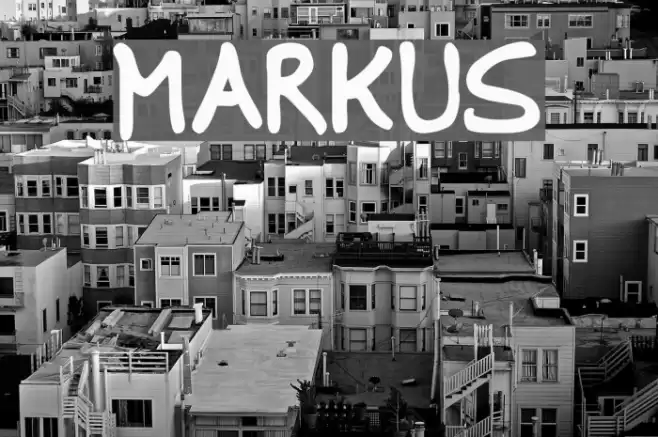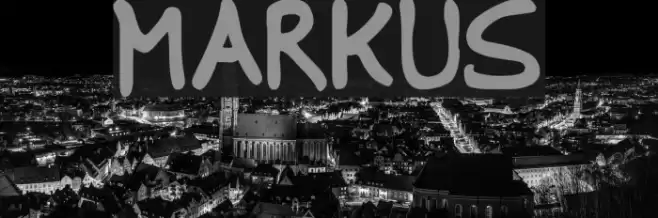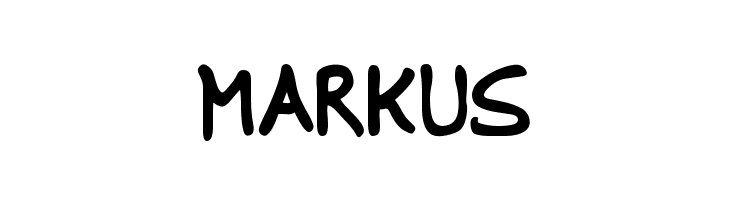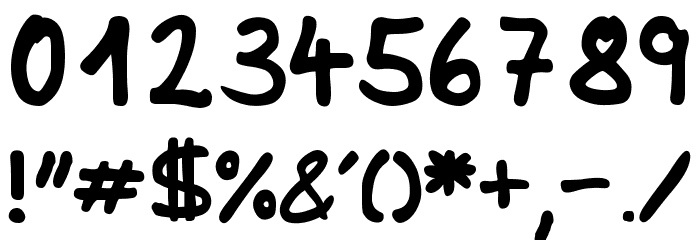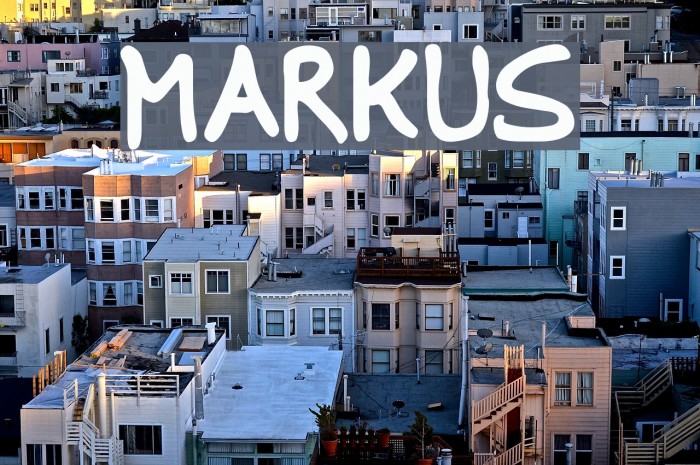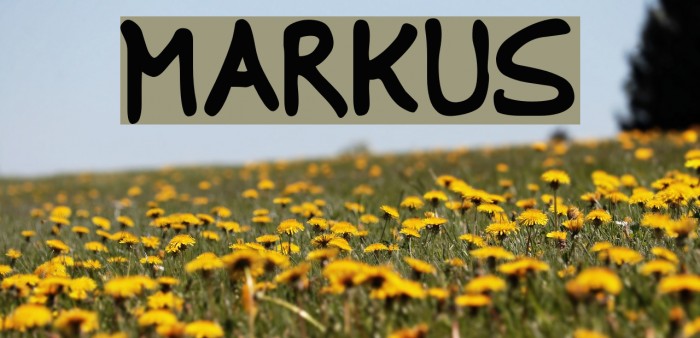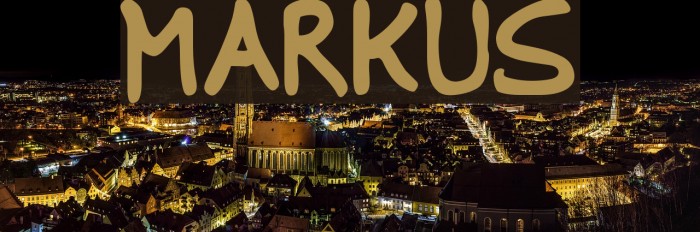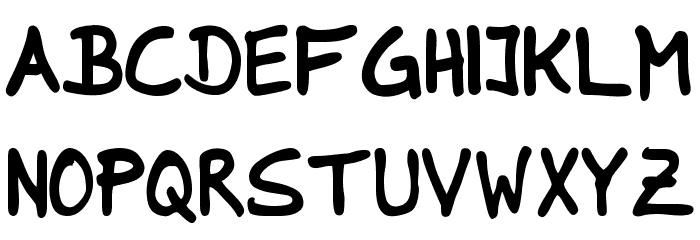
Markus Font
Markus Description
This font features a playful and bold handwritten style, characterized by its thick strokes and rounded edges. The letters are slightly irregular, giving it a casual and friendly appearance. The uppercase and lowercase characters maintain a consistent style, with a noticeable emphasis on rounded forms and a slightly exaggerated width. Numbers and special characters follow the same design principles, ensuring a cohesive look across all elements. The font's informal nature makes it ideal for projects that require a personal touch or a sense of whimsy.
A bold, playful handwritten font with rounded edges and thick strokes from Uncategorized fonts.
- Proposed Projects: Ideal for children's books, playful branding, casual invitations, and creative posters.
- Width: Expanded
- Overall Style: Casual